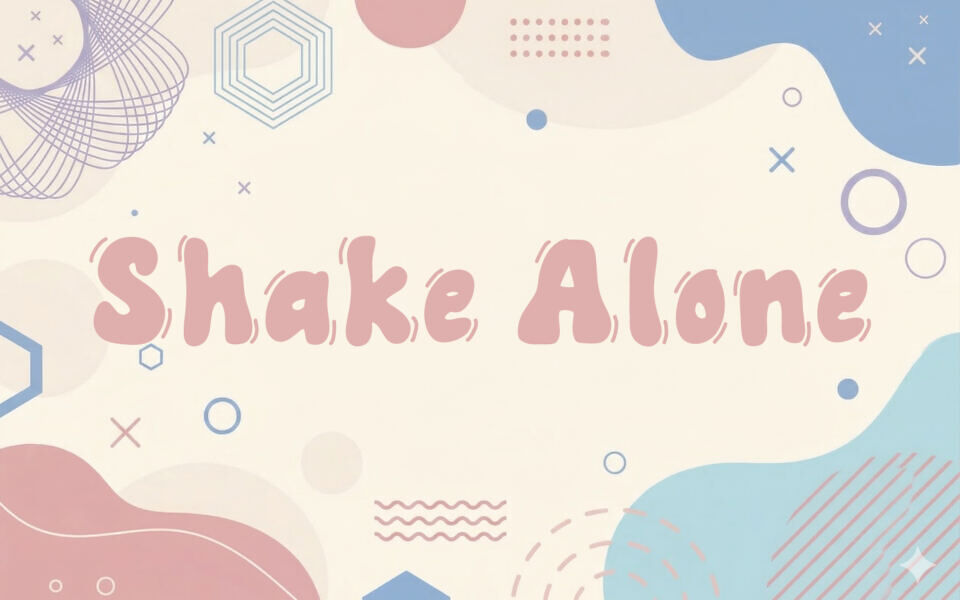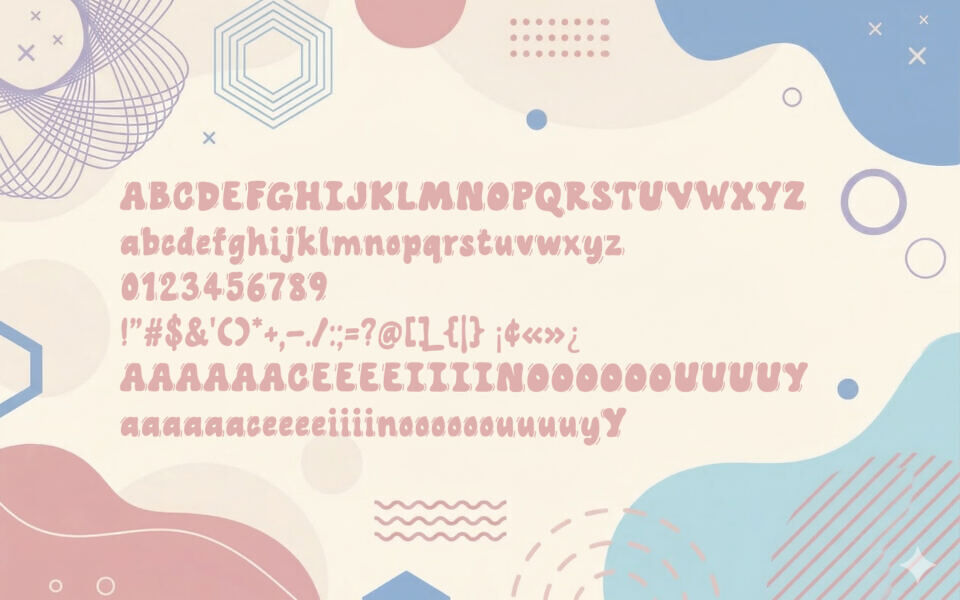
Shake Alone is a playful and chunky display font that brings a fun, comic-style personality to any design. Created by Rachmad Bagus Fatchi, it features bold, rounded letterforms with a slightly irregular and lively appearance, making it perfect for eye-catching titles and creative projects.
Its cheerful and youthful vibe works especially well for children’s content, posters, logos, and social media graphics. With its expressive style and strong visual presence, Shake Alone adds energy and charm, helping designs stand out while maintaining readability and a friendly, approachable look.